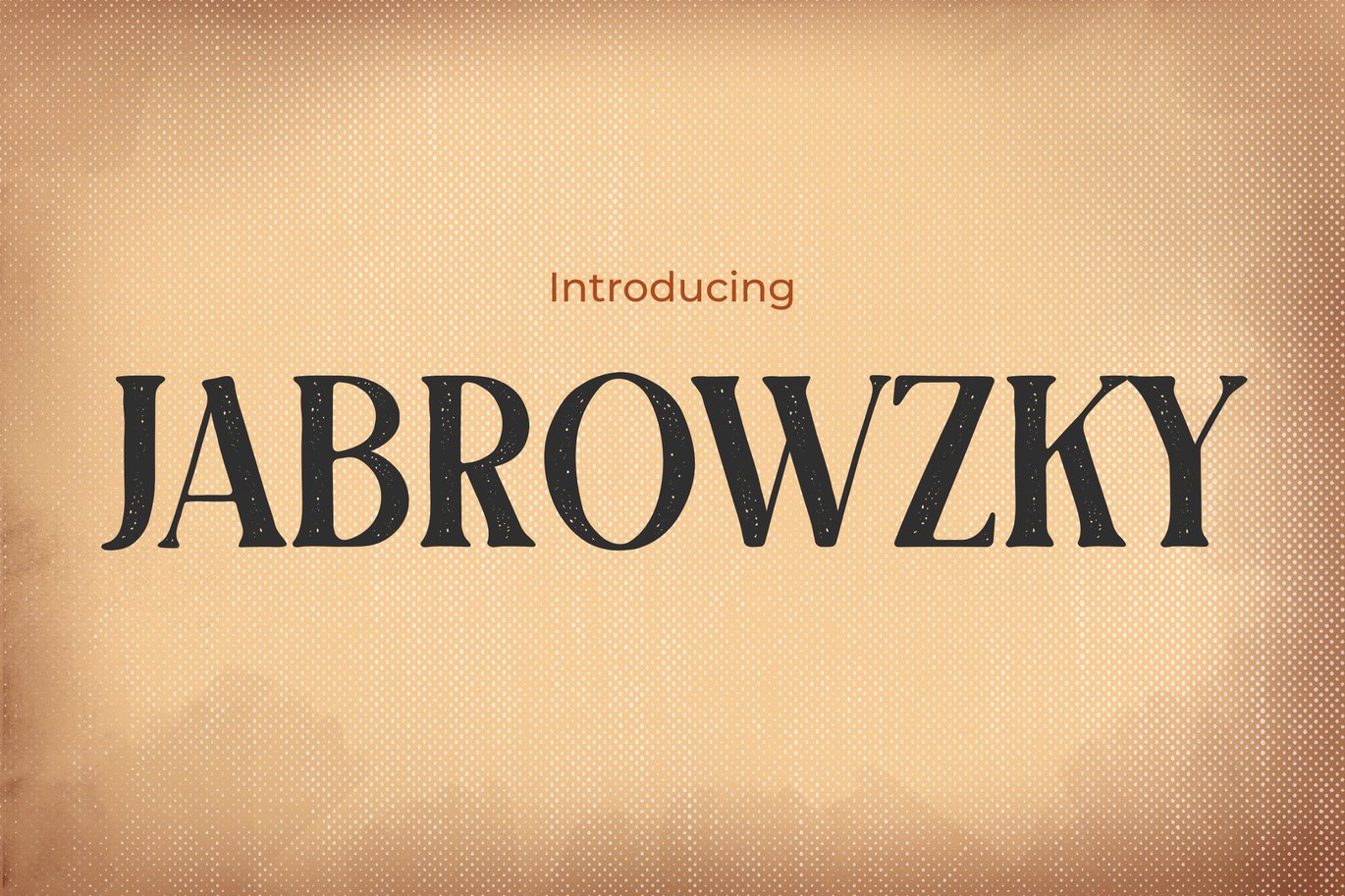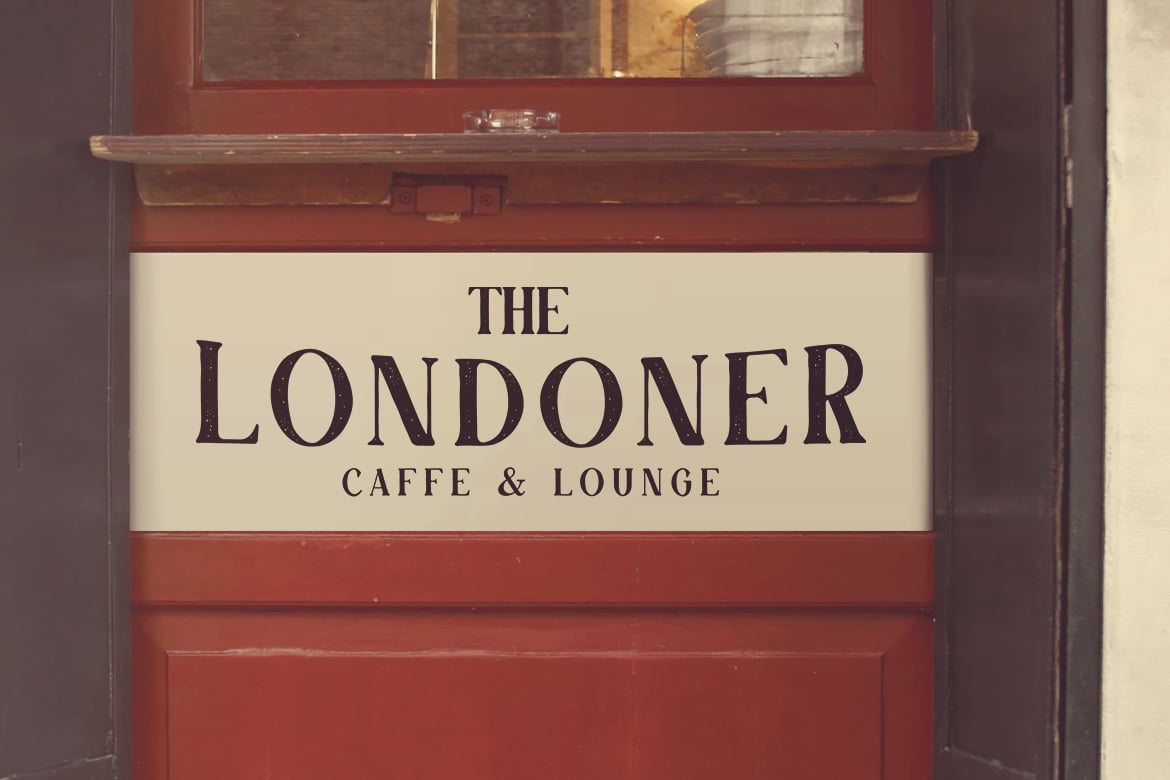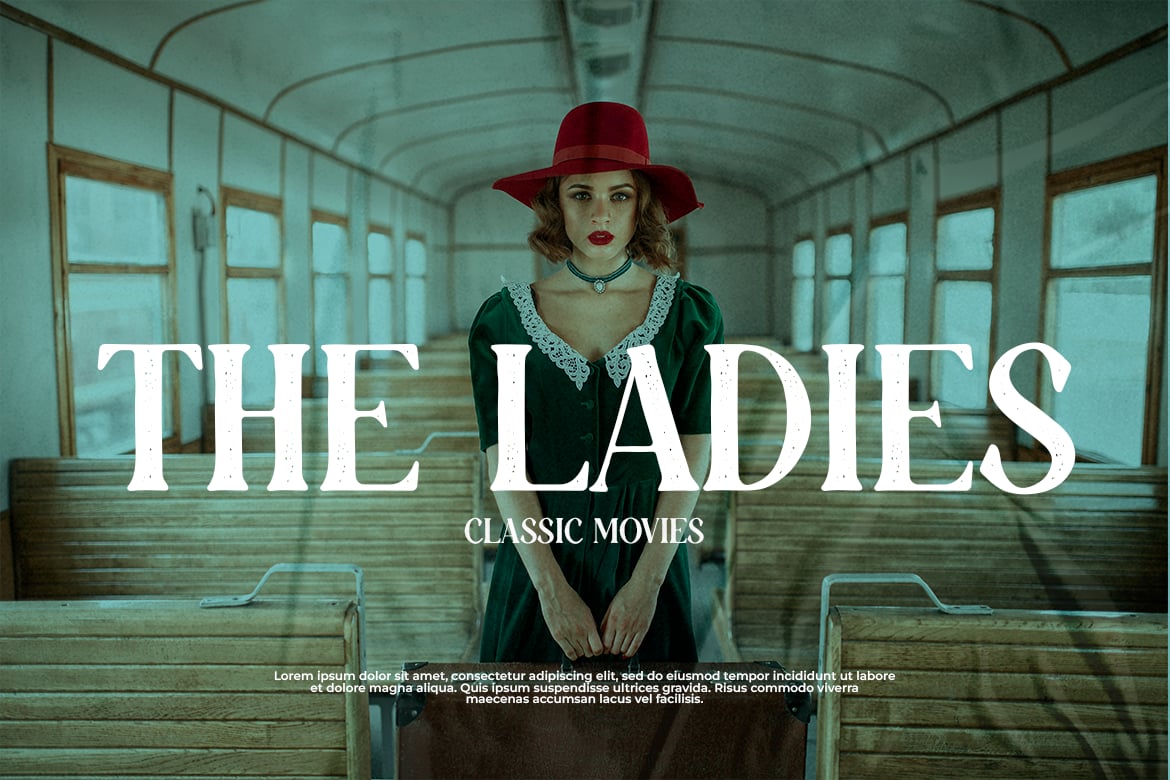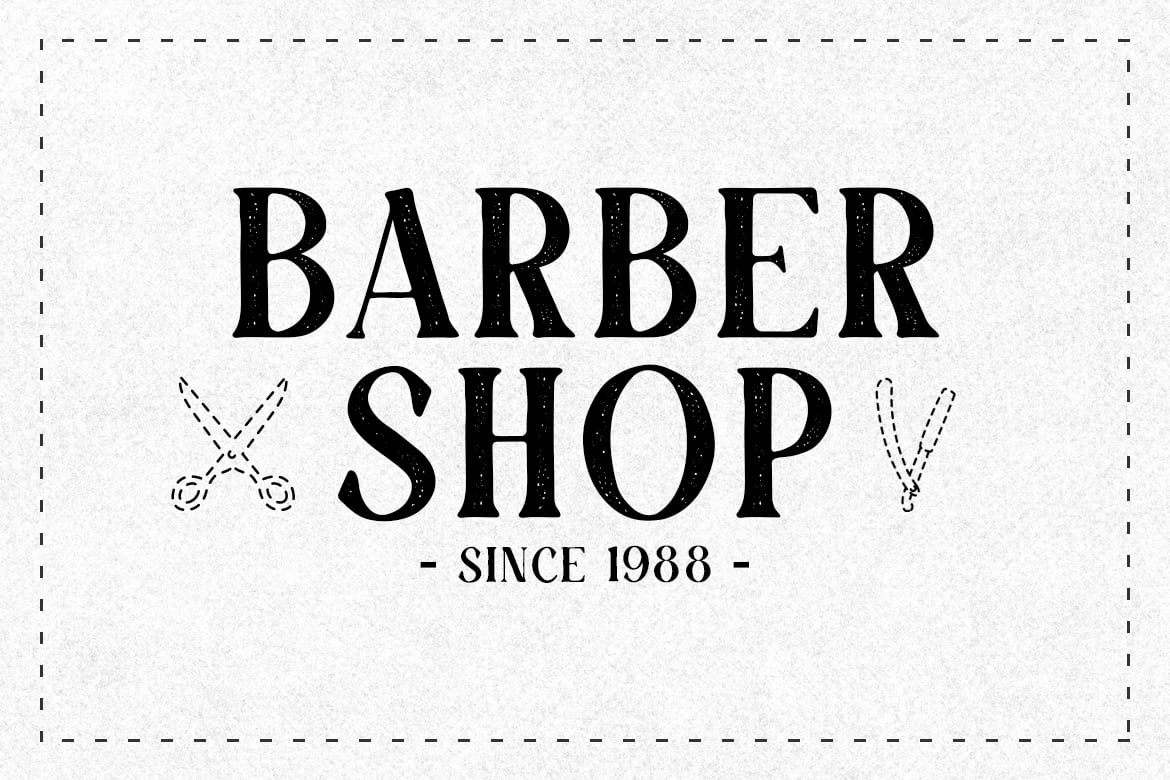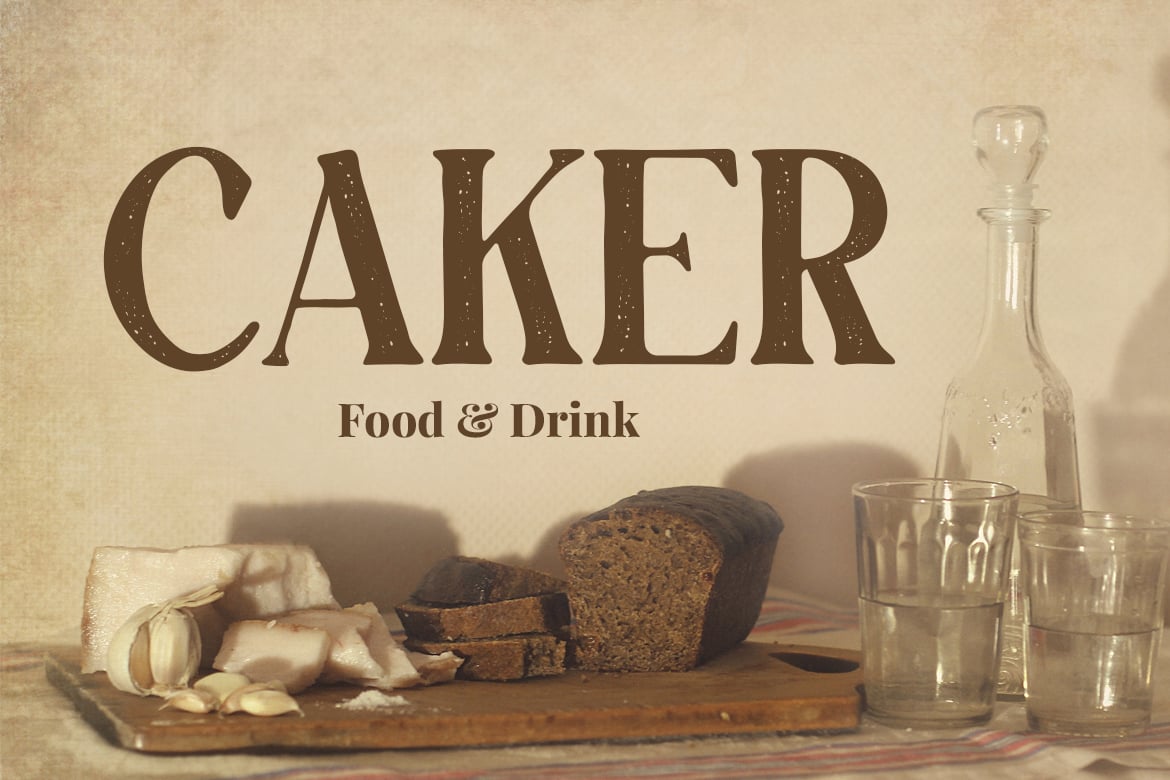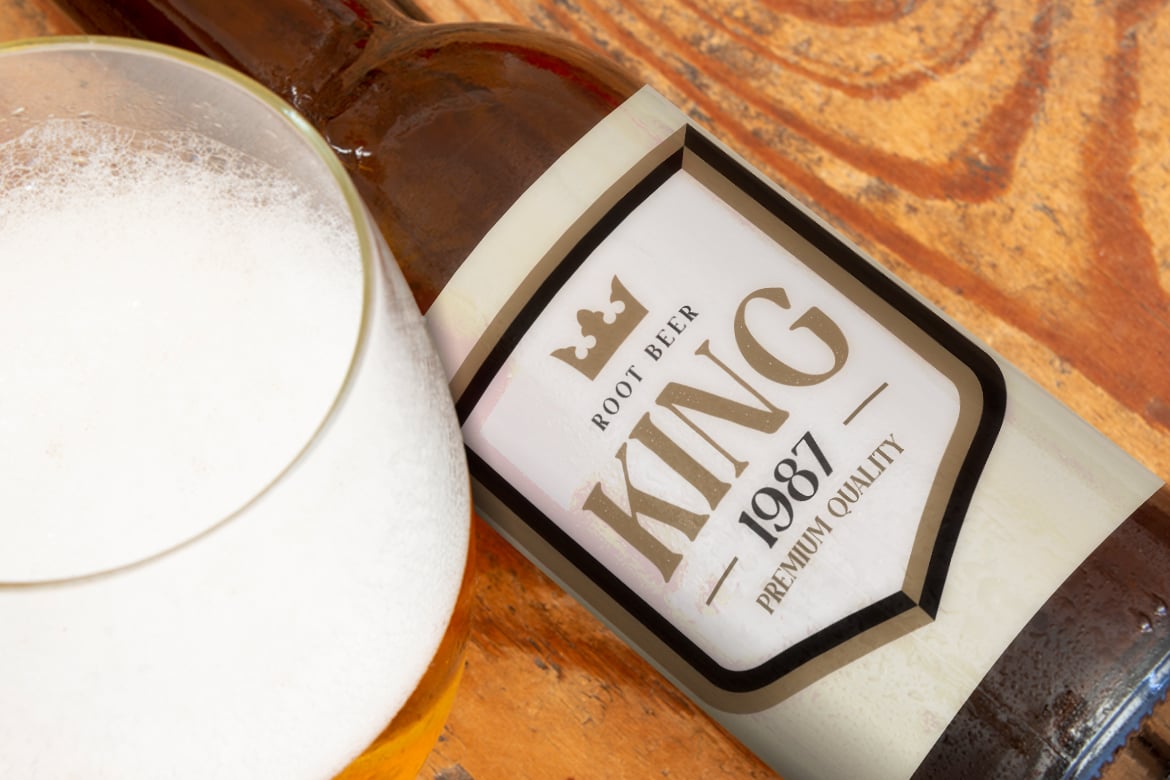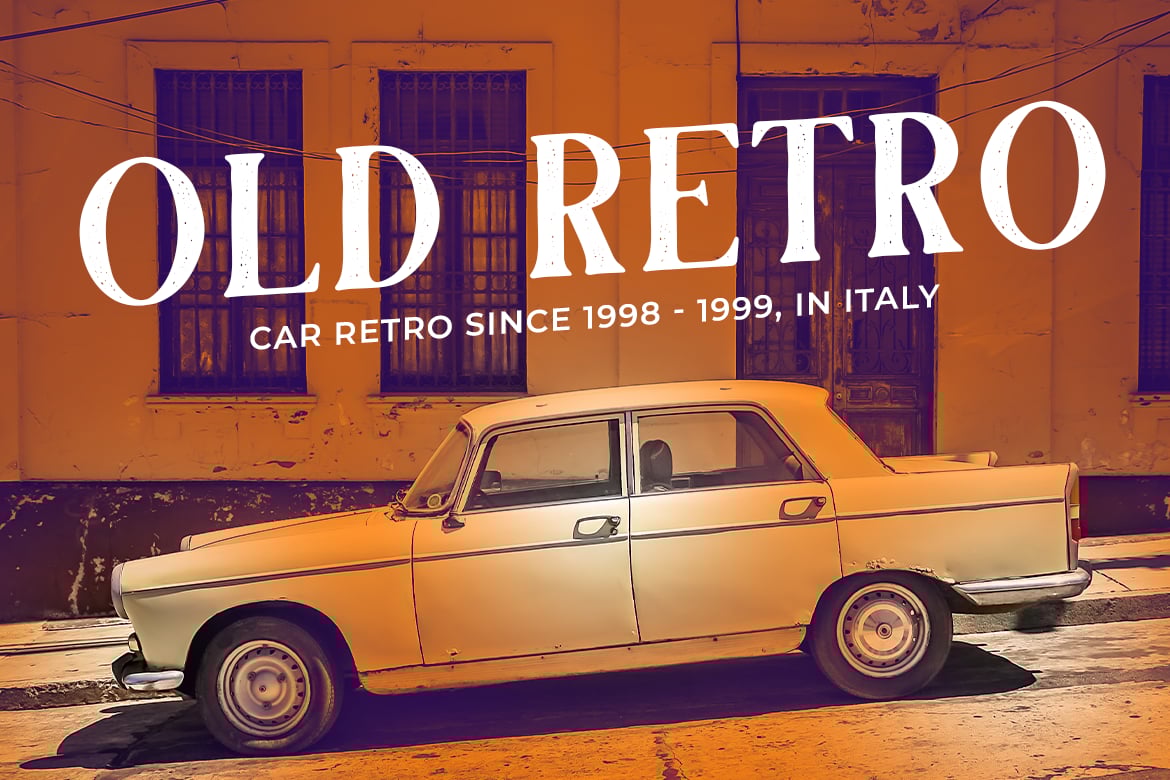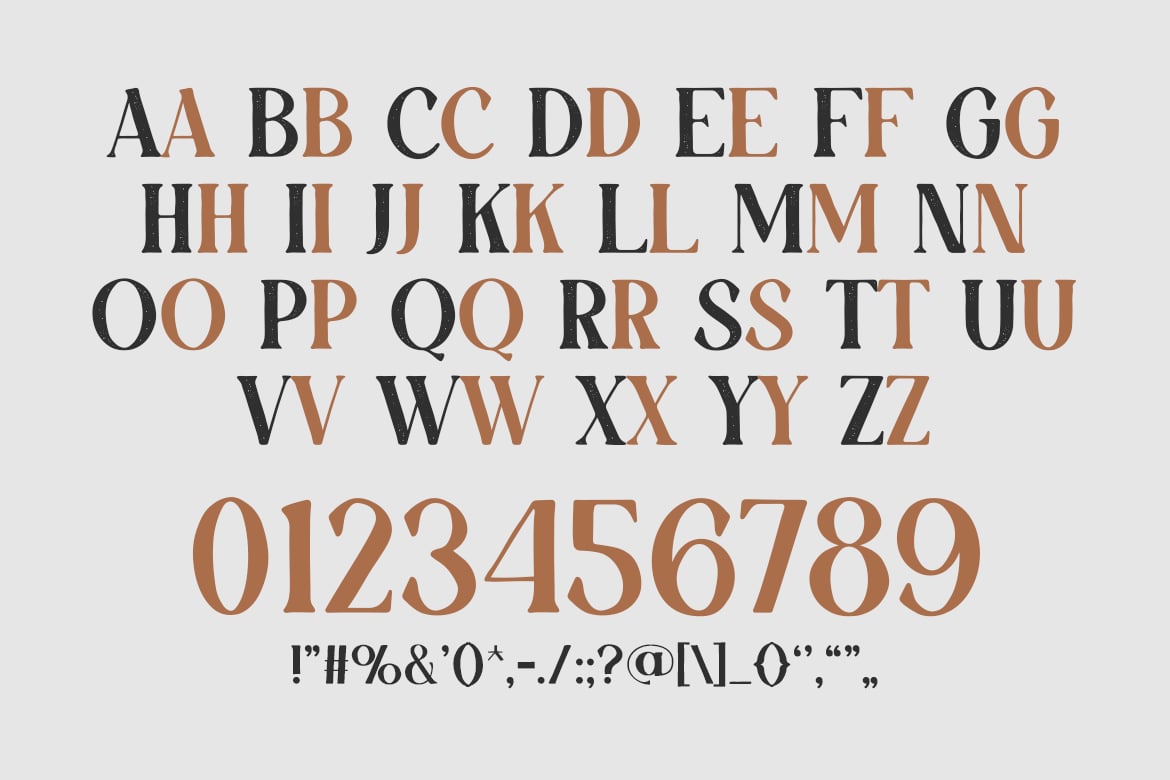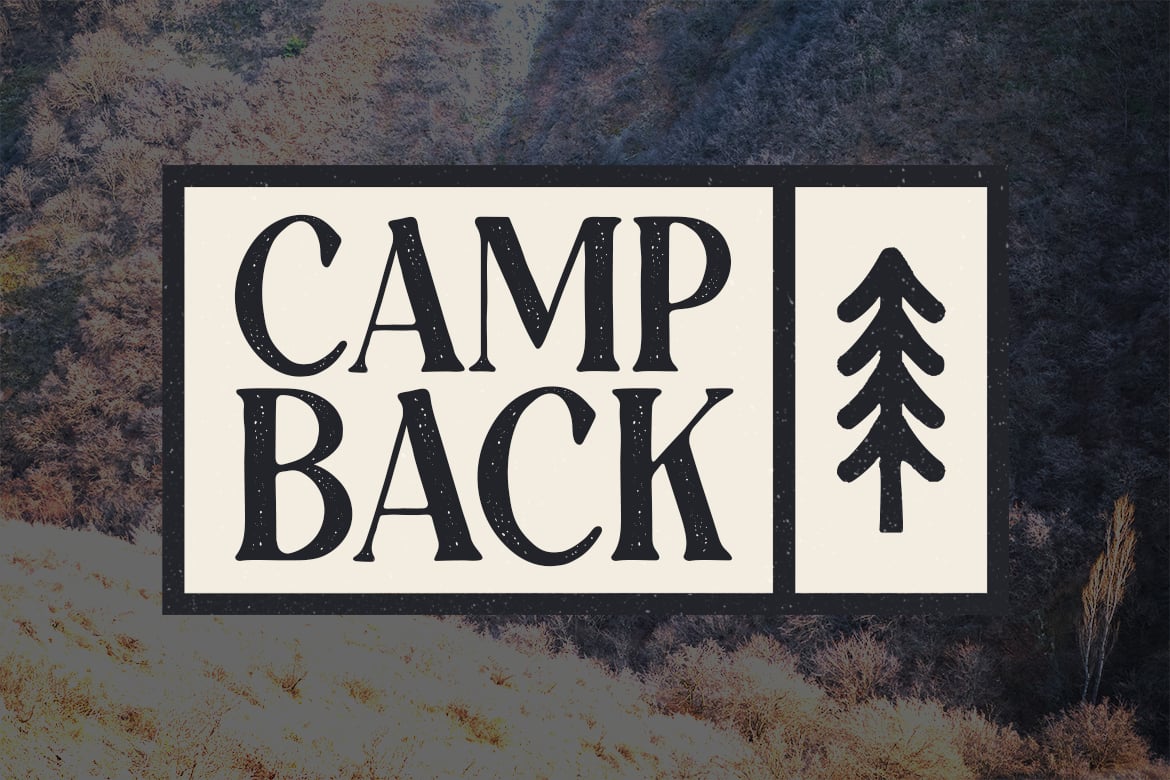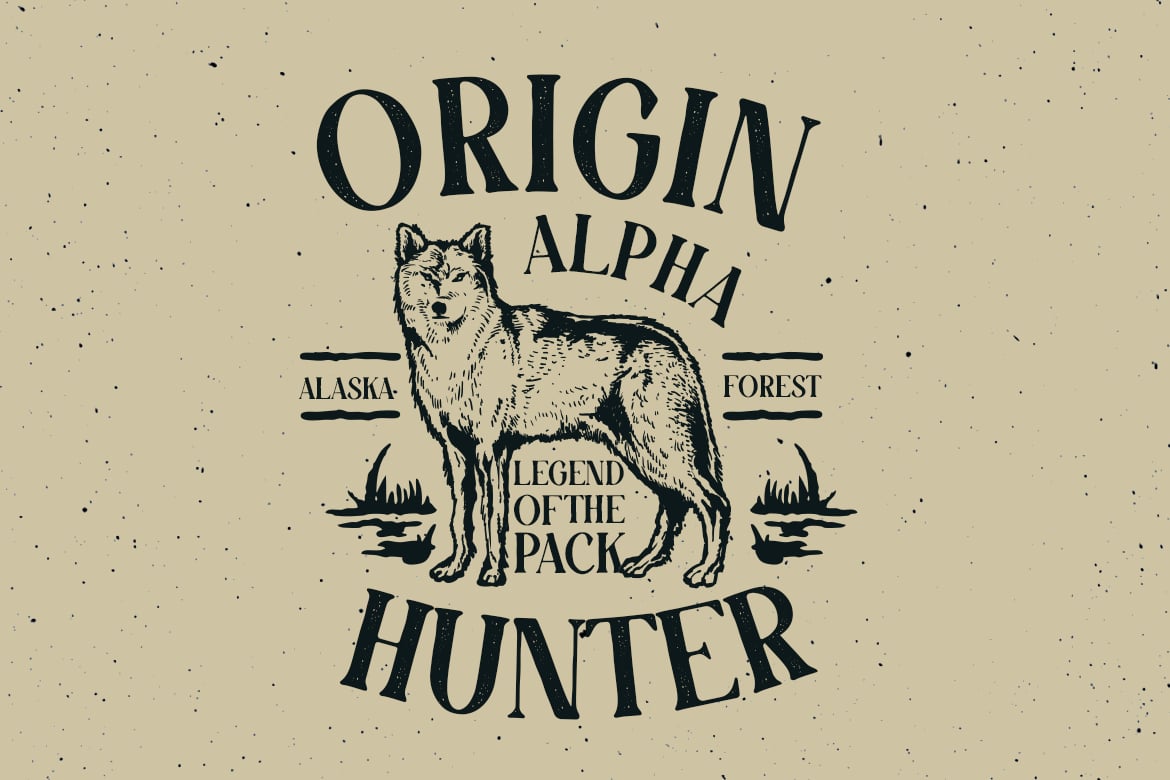
Jabrowzky – A Nostalgic Retro Font
Jabrowzky is a retro font that captures the essence of the old and vintage styles from the 70s and 80s, combined with the classic look of badges used in signage and logos of that era. This font is perfect for projects requiring nostalgia, lending an authentic retro feel to logos, branding, and advertising campaigns. Jabrowzky’s distinctive character makes it ideal for crafting quotes that echo a bygone era and invitations that aim to evoke the unique styles of the 70s and 80s. Whether used in posters, greetings, or packaging, Jabrowzky enhances each design with its old-school charm. It’s also highly effective for covers, event promotions, and headlines, offering a bold and memorable visual impact that captures the spirit of retro design.